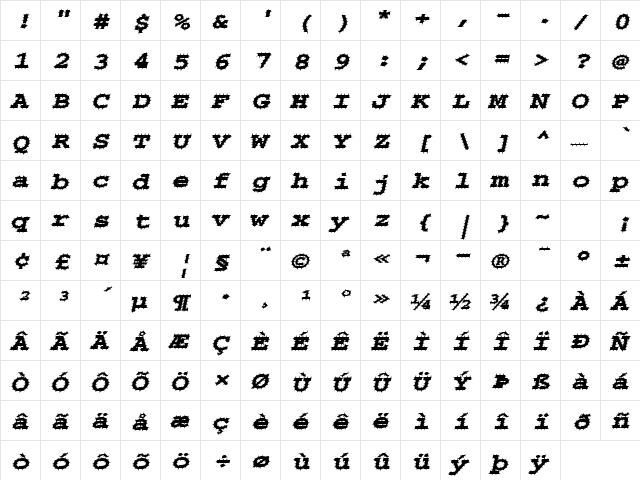
ChiselSpikedExtended Italic
Design Context for ChiselSpikedExtended Typeface
ChiselSpikedExtended takes a measured approach to typography — its balanced proportions and neutral character make it a reliable workhorse for both digital and print work. Its italic angle brings a sense of urgency and motion to the letterforms.
Pro Tip: Use ChiselSpikedExtended for emphasis, pull quotes, and subheadings where its slanted energy can add rhythm to the layout.